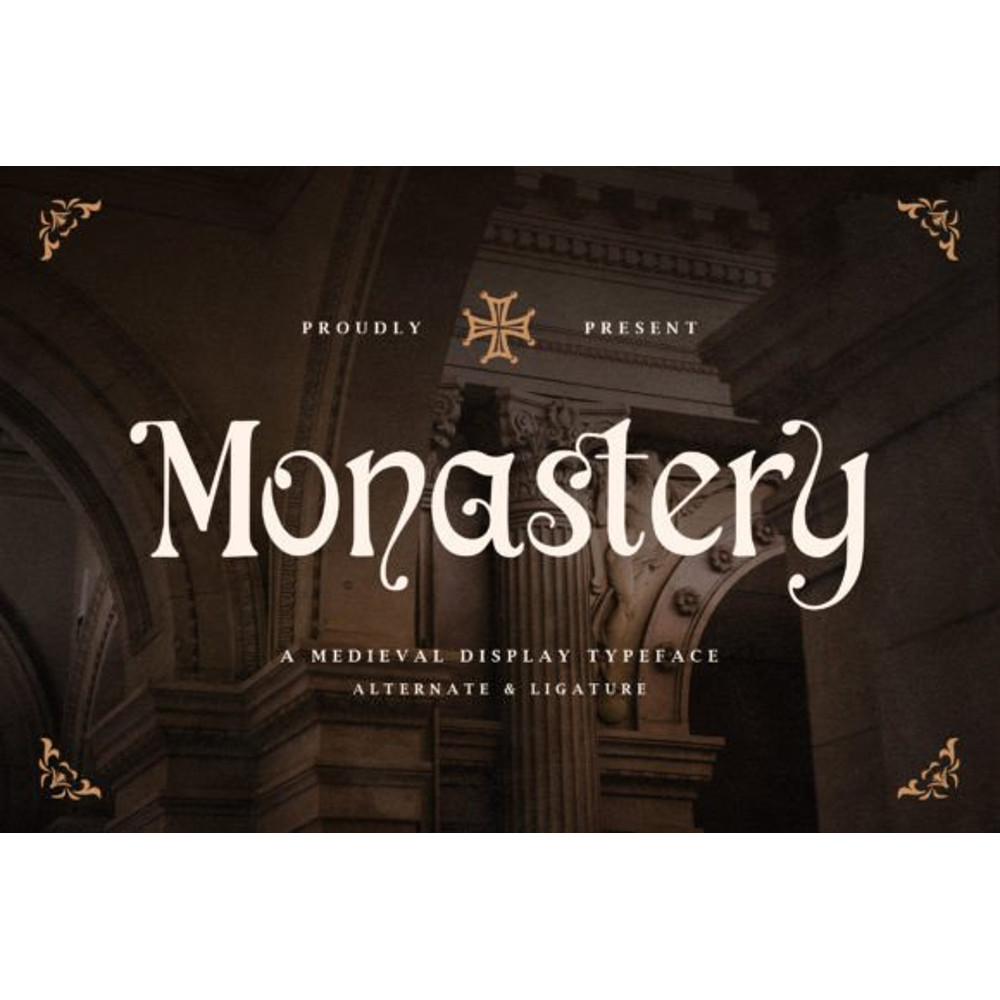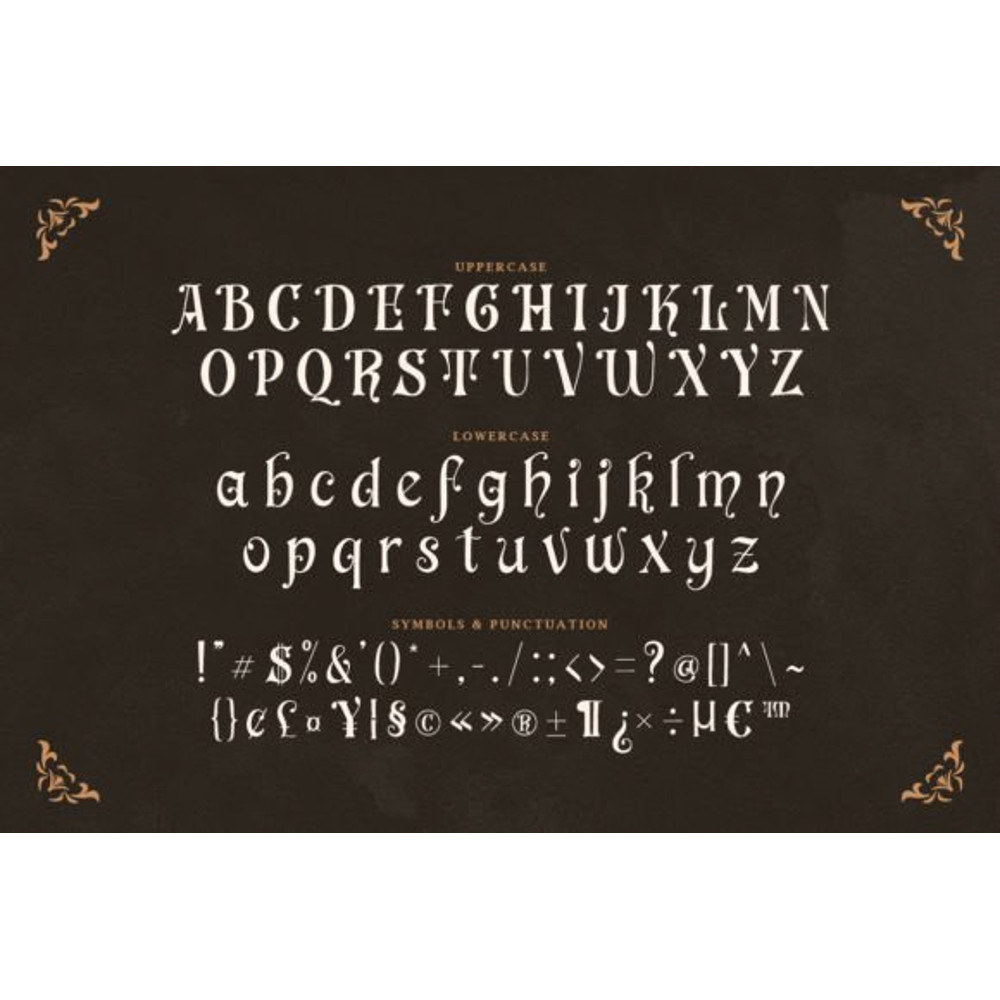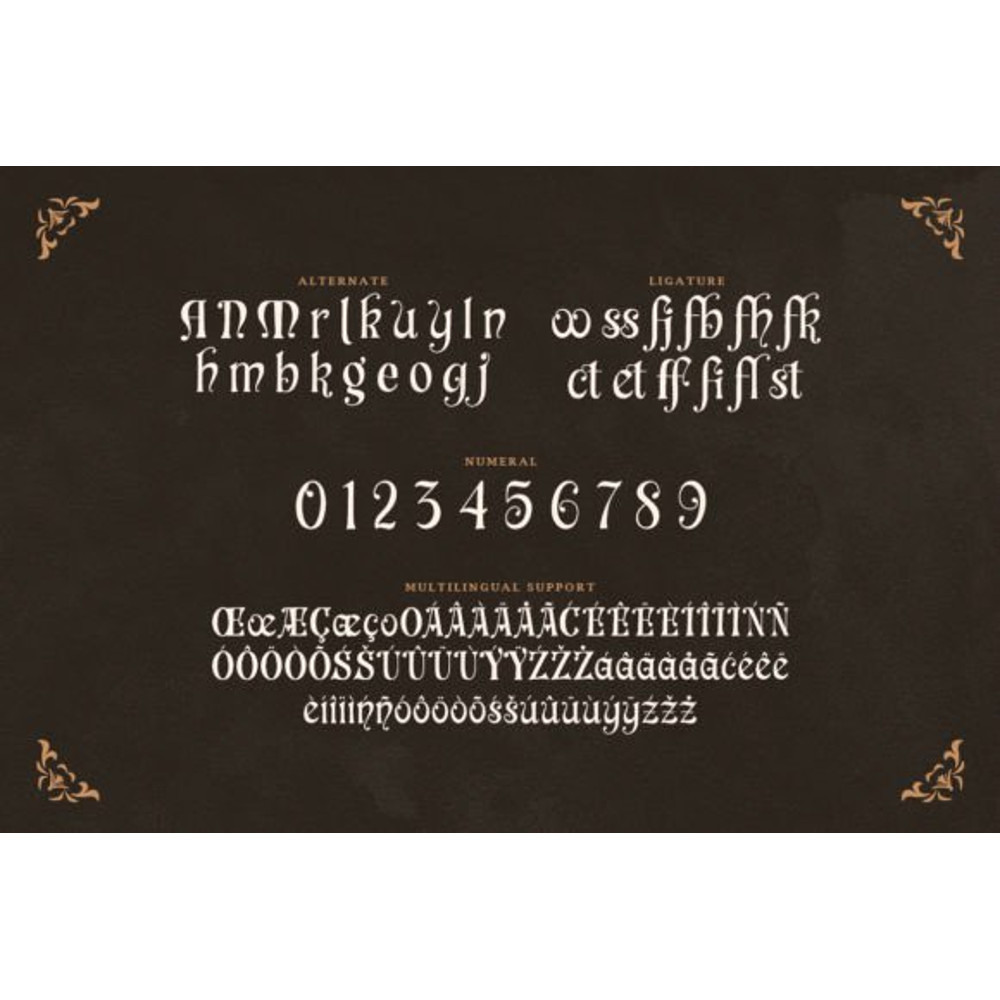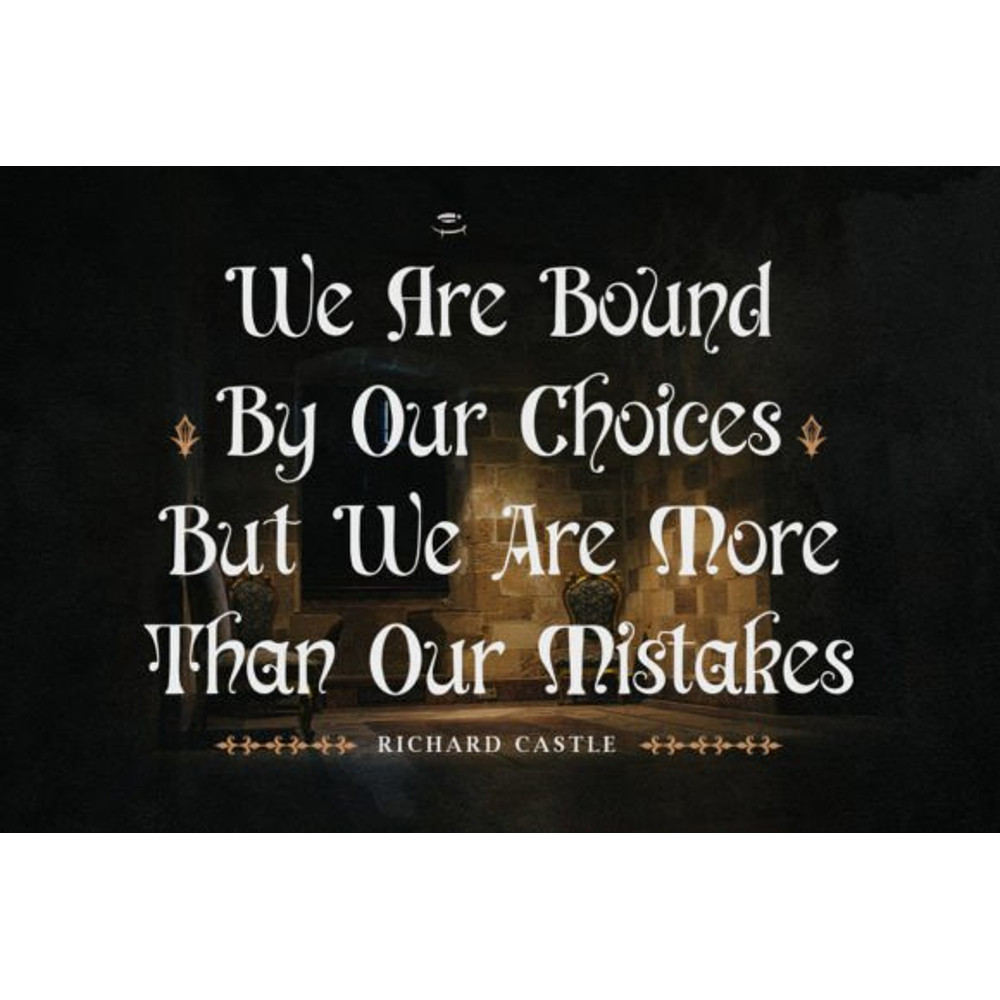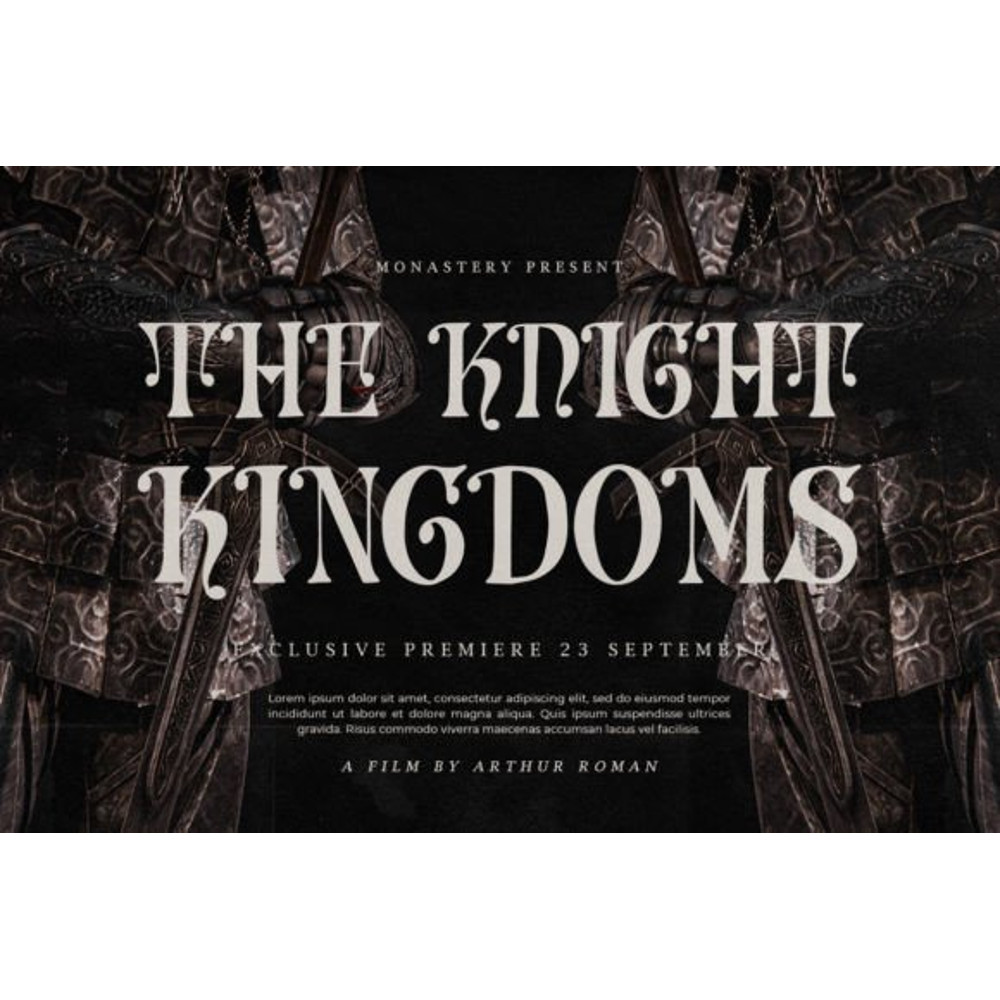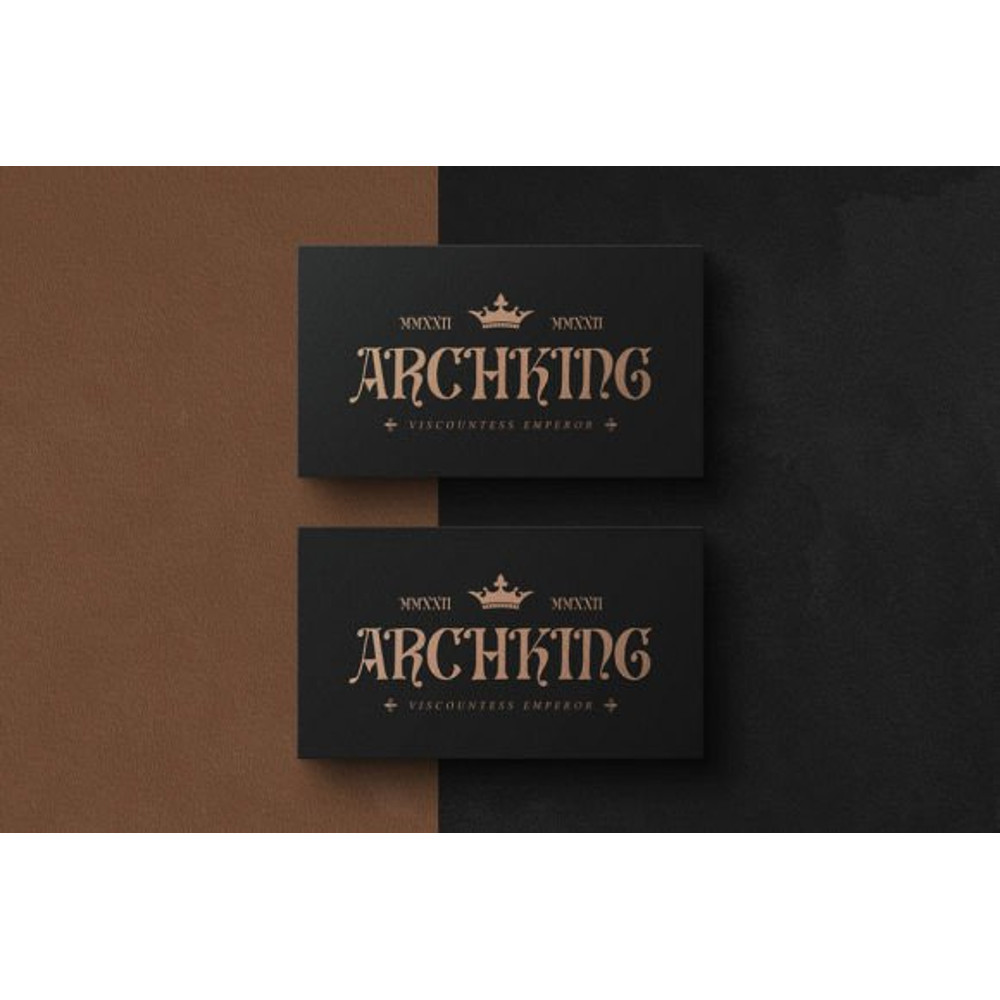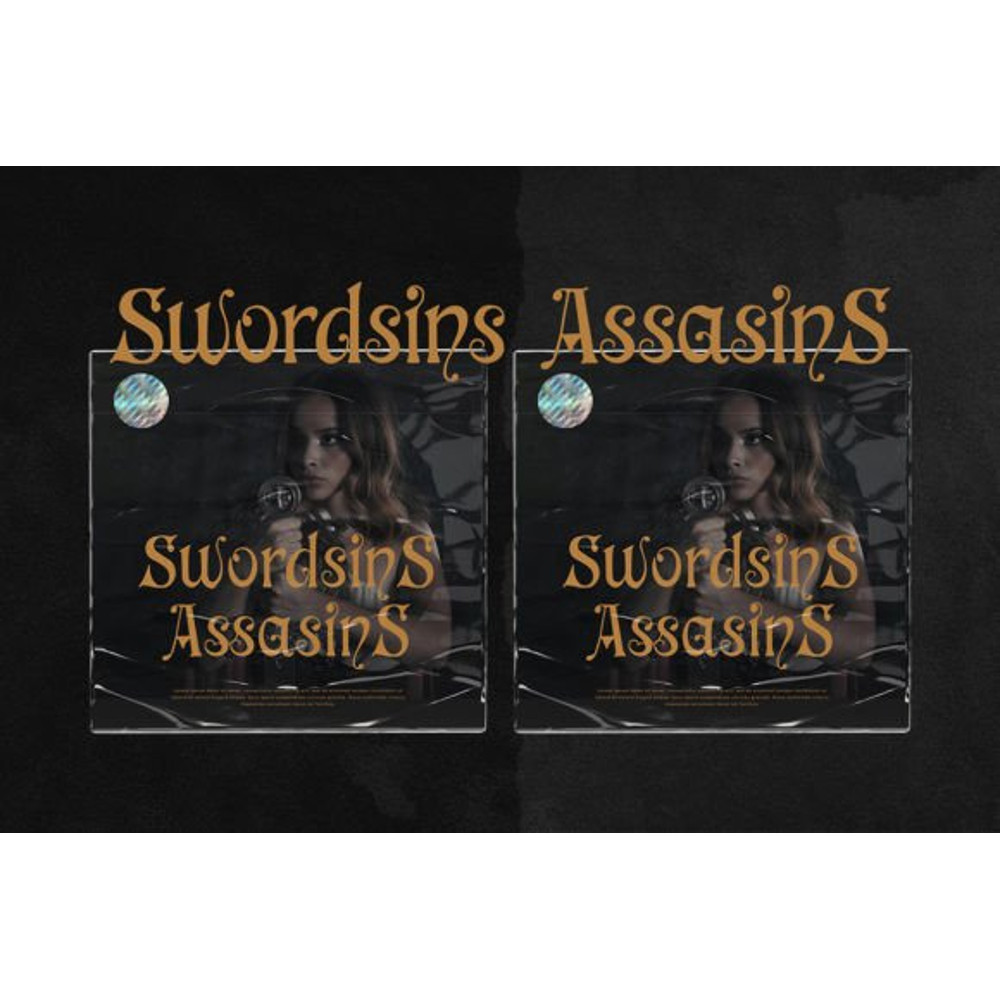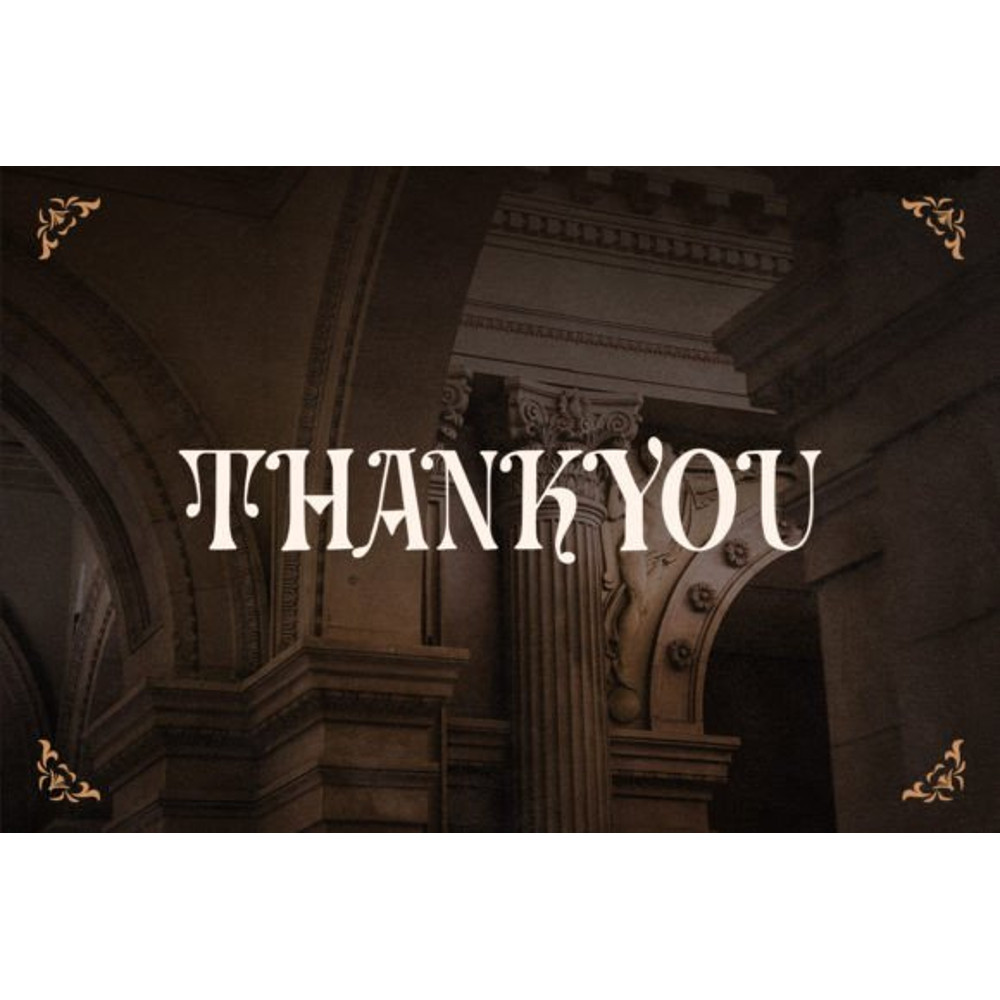
Monastery Font
Monastery is a fun and interesting display font with a unique, medieval vibe.
Inspired by a medieval Gothic-looking letter type, this font will be suitable for all your historical-themed projects.